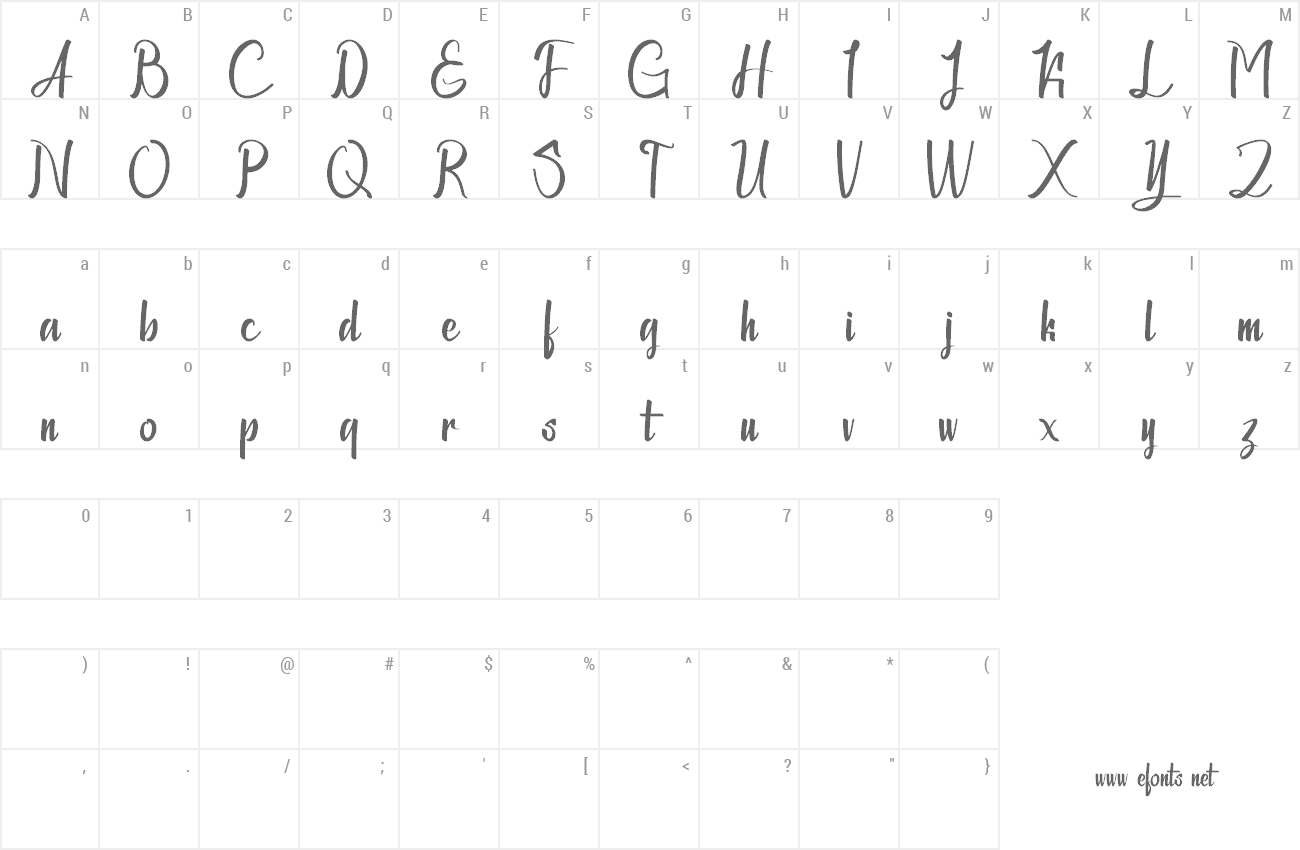
Font name: | Chapline |
Author: | Ditoollis Project |
Note by Ditoollis Project | |
NOTE : This is demo font for PERSONAL USE ONLY! Link to purchase full version and commercial license: https://www.creativefabrica.com/designer/ditoollis-project/ introduce "Chapline". script font that just released This font is cool, elegant, modern ... the font that fits your design. fonts that are very suitable for invitations, logos, business cards, covers, on shirts, for quotes and more ... fonts that are equipped starting from uppercase, lowercase, punctuation, numbers, multilingual and there are ligature and alternates .. Okay. please download the "Chapline" font, and congratulations on making friends ... if there are further questions. can contact me faizalsaid4@gmail.com thank you.. |